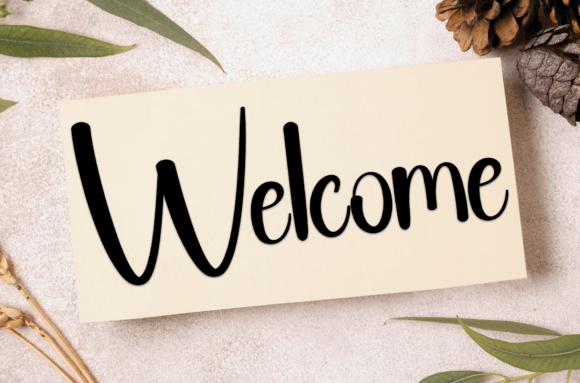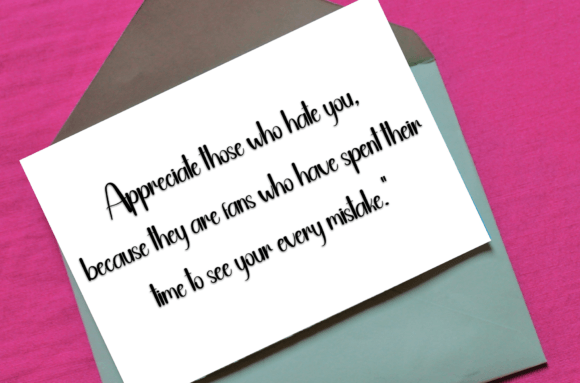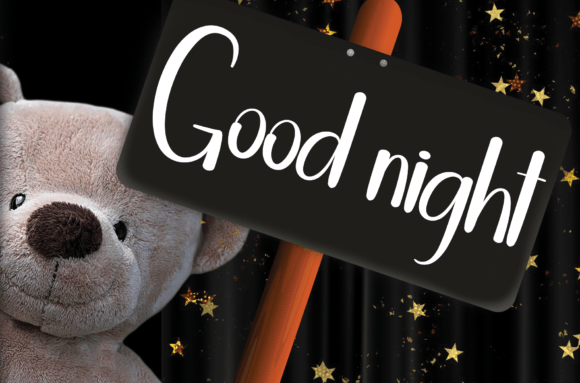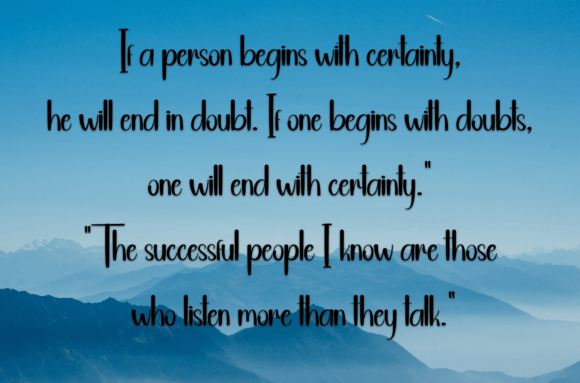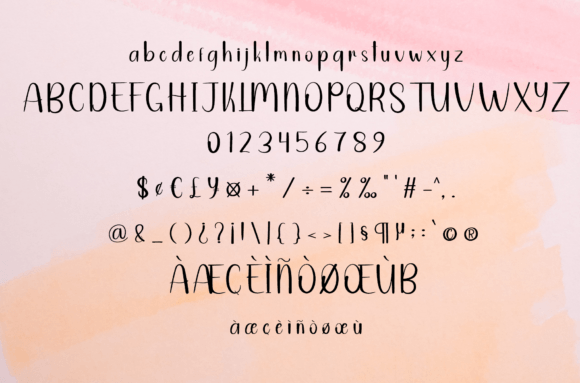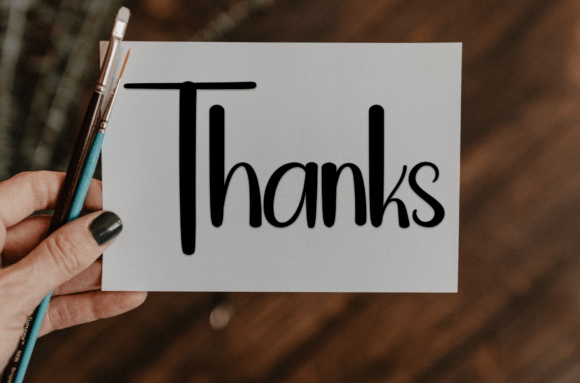
Introducing Farmhouse Font: The Sweet and Friendly Handwritten Font for Your Creative Projects
Are you a designer or crafter looking for a font that can add a touch of warmth and personality to your creative projects? Look no further than Farmhouse Font, a sweet and friendly handwritten font that’s perfect for a variety of applications. In this article, we’ll take a closer look at Farmhouse Font, its features, and how you can use it to elevate your designs.
Farmhouse Font is a beautiful, handwritten font that’s designed to bring a sense of joy and playfulness to your designs. With its creative and cute style, this font is ideal for writing wedding invitations, cards, or any other design that might need a fun touch. Whether you’re a professional designer or a DIY crafter, Farmhouse Font is a great choice for anyone looking to add a personal touch to their projects.
So, what makes Farmhouse Font so special? Here are some of its key features:
- Sweet and Friendly Style: Farmhouse Font has a warm and inviting style that’s perfect for creating designs that are friendly and approachable.
- Handwritten Look: This font has a beautiful, handwritten look that’s perfect for adding a personal touch to your designs.
- Cute and Creative: Farmhouse Font is a creative and cute font that’s ideal for designs that need a fun and playful touch.
- Versatile: This font is versatile and can be used for a variety of applications, from wedding invitations to cards and more.
How to Use Farmhouse Font in Your Designs
Now that we’ve covered the features of Farmhouse Font, let’s talk about how you can use it in your designs. Here are some ideas to get you started:
- Wedding Invitations: Farmhouse Font is a great choice for wedding invitations, as it adds a touch of warmth and personality to your design.
- Cards: This font is also perfect for creating cards for special occasions, such as birthdays, anniversaries, and more.
- DIY Crafts: Farmhouse Font is a great choice for DIY crafters who want to add a personal touch to their projects, such as scrapbooking, journaling, and more.
- Social Media Graphics: This font can also be used to create social media graphics that are friendly and approachable.
Tips for Using Farmhouse Font Effectively
Here are some tips for using Farmhouse Font effectively in your designs:
- Pair it with Other Fonts: Farmhouse Font can be paired with other fonts to create a unique and interesting look.
- Use it in Combination with Images: This font looks great in combination with images, such as photos or illustrations.
- Experiment with Colors: Farmhouse Font can be used with a variety of colors to create a different look and feel.
In conclusion, Farmhouse Font is a sweet and friendly handwritten font that’s perfect for designers and crafters who want to add a touch of warmth and personality to their creative projects. With its creative and cute style, this font is ideal for writing wedding invitations, cards, or any other design that might need a fun touch. We hope this article has provided you with a better understanding of Farmhouse Font and how you can use it in your designs.
Whether you’re a professional designer or a DIY crafter, Farmhouse Font is a great choice for anyone looking to add a personal touch to their projects. So why not give it a try and see how it can elevate your designs?